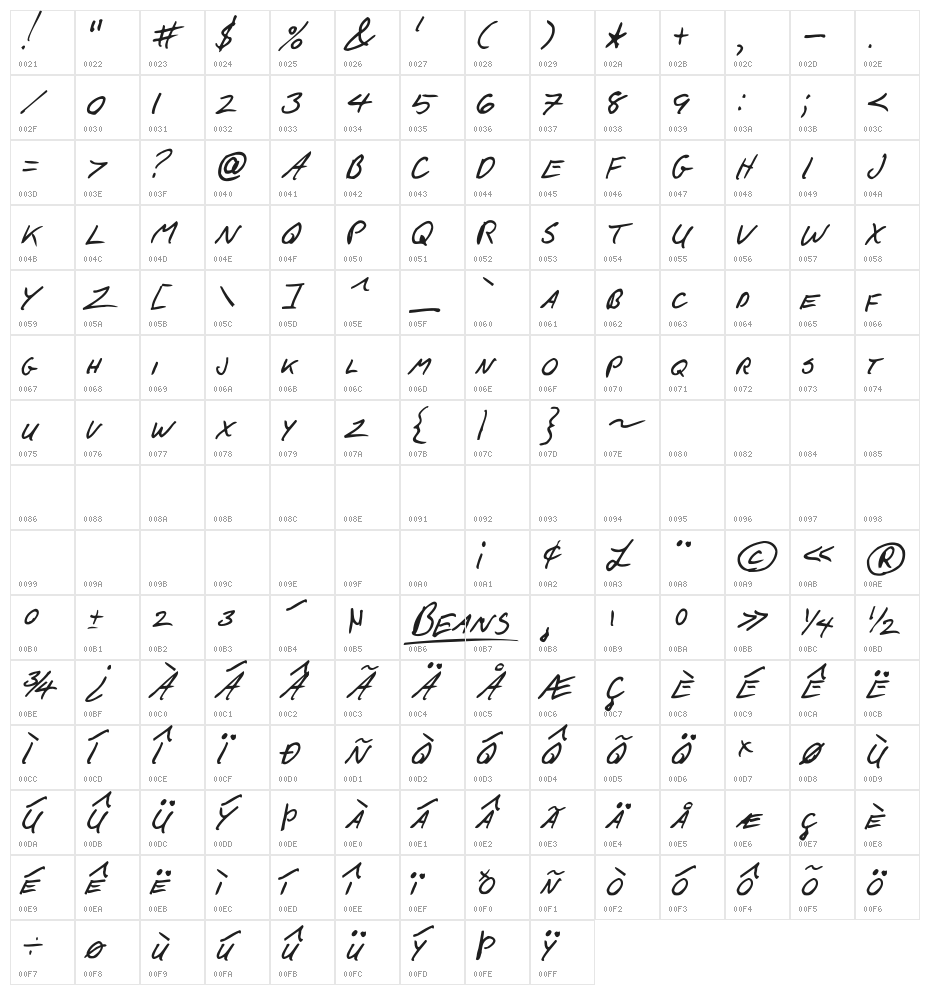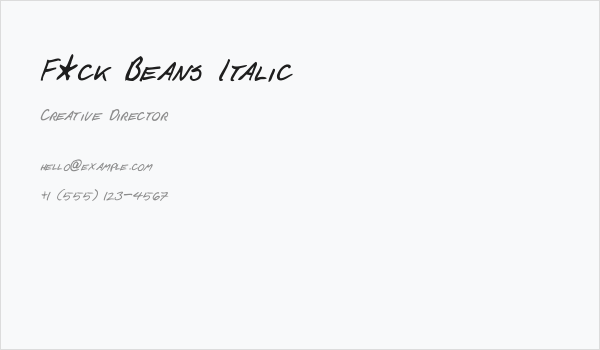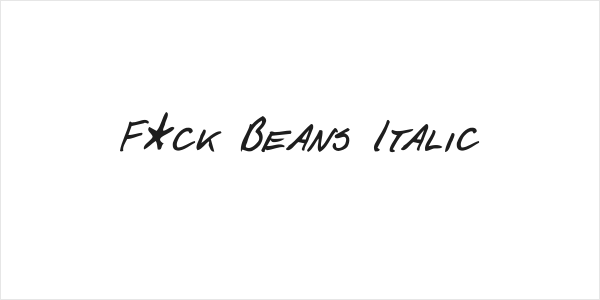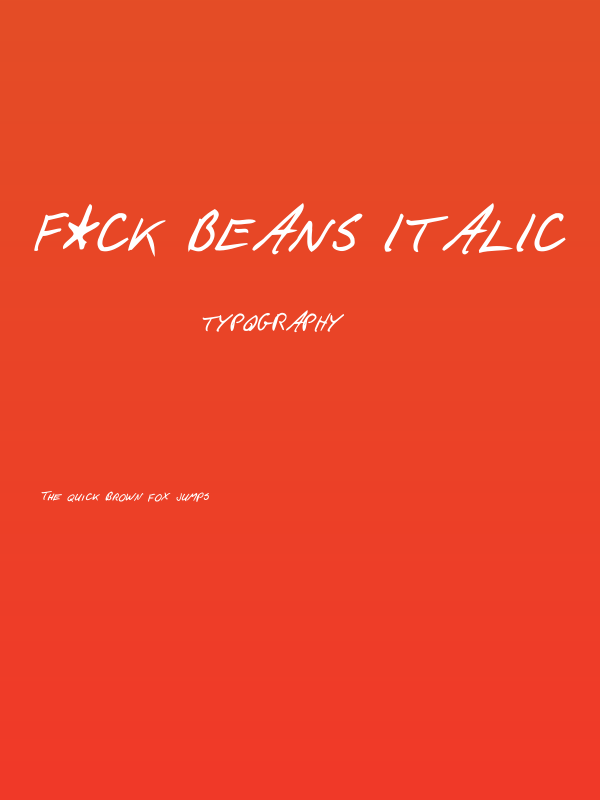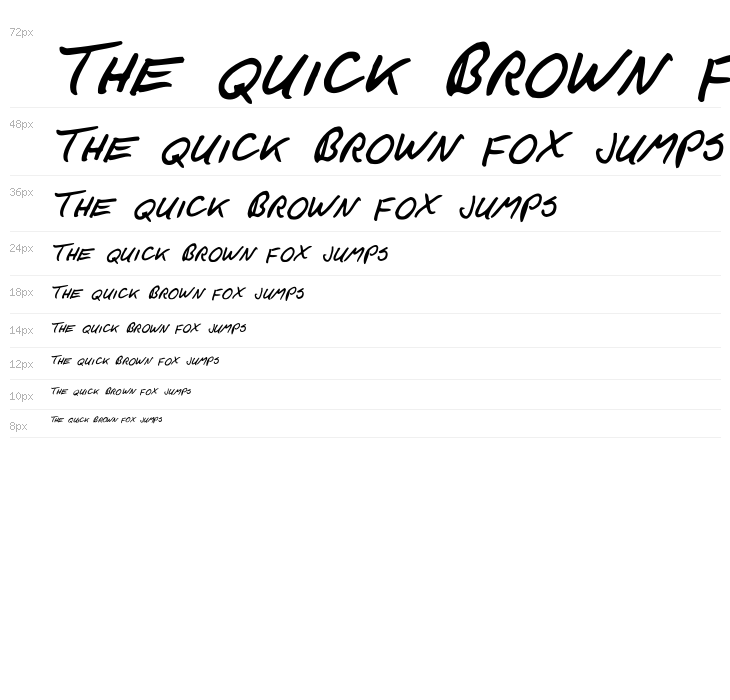
F*ck Beans Italic Font
F*ck Beans Italic Description
This font features a dynamic and energetic handwritten style with a noticeable slant, giving it an italic appearance. The strokes are bold and fluid, creating a sense of movement and spontaneity. The uppercase and lowercase letters maintain a consistent style, with rounded edges and a slightly irregular baseline that enhances its casual, informal look. Numbers and special characters are crafted with the same lively flair, making them easily integrated into various designs. The overall impression is one of creativity and expressiveness, suitable for projects that require a personal touch.
| Use Case | Logos, Headlines, Artistic designs |
| Proposed Projects | Ideal for creative projects such as greeting cards, invitations, personal branding, and artistic posters. |